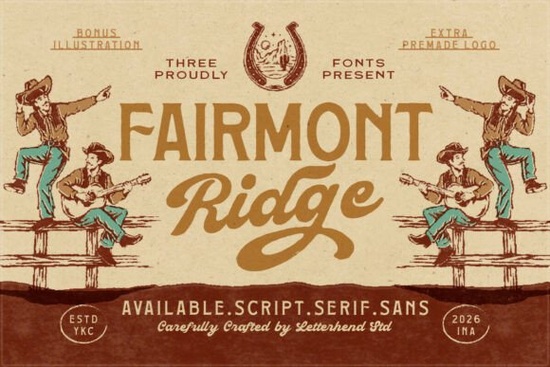
If you're looking for a font that feels like it belongs on a weathered wooden sign outside a roadside diner or a vintage country music poster, Fairmont Ridge Font fits right in. It’s not just one style it’s a coordinated family of bold serif, smooth script, and clean sans-serif fonts, all designed to work together while keeping that warm, handcrafted western vibe. Whether you’re making t-shirts for a local band, designing wedding invites with rustic charm, or building a small business brand that values authenticity over polish, this font gives your work grounded personality without feeling dated.
What makes Fairmont Ridge different from other western-style fonts?
Many “cowboy” fonts lean too hard into caricature overly distressed, overly slanted, or so stylized they’re hard to read at smaller sizes. Fairmont Ridge avoids that trap. Its serif has sturdy proportions and subtle contrast, its script flows naturally (not overly flourished), and its sans is quietly confident not generic, but versatile enough for labels, packaging, or social graphics. The family was inspired by real visual references: faded motel signage, hand-painted record sleeves, and old Western town banners. That shows up in the slight irregularity of stroke weight and spacing the kind of detail that reads as “made by hand,” not “generated by algorithm.”
Who uses Fairmont Ridge and how?
Small business owners use it for café menus, craft brewery labels, and boutique shop signage especially when they want to signal warmth and approachability without leaning into cliché. Print-on-demand sellers pair it with earthy color palettes for mugs, tote bags, and wall art aimed at fans of Americana, folk music, or slow-living aesthetics. Designers building branding for farms, bakeries, or local festivals often choose it because it balances character with clarity even at 12pt on a product tag.
Crafters appreciate how well it pairs with simple illustrations: think line-drawn cacti, vintage trucks, or handwritten flourishes. You’ll see it used alongside textures like kraft paper, linen canvas, or matte laminate finishes not glossy or high-contrast digital-only looks. It’s also popular among educators creating classroom posters with a cozy, storybook-meets-saloon feel.
One thing to keep in mind: Fairmont Ridge isn’t meant for ultra-modern tech startups or minimalist luxury brands. It shines where sincerity matters more than sleekness so trust your gut if it feels right for your project’s voice.
Where can you see Fairmont Ridge in action?
You’ll find real-world examples across Creative Fabrica’s marketplace like SVG bundles for Cricut users, layered Procreate brush kits for iPad artists, or printable templates for wedding planners. Some designers combine the serif version with hand-drawn borders; others use the script for monograms and the sans for clean, readable details. It works especially well in print: the letterforms hold up on uncoated paper, screen-printed fabric, or embossed stationery.